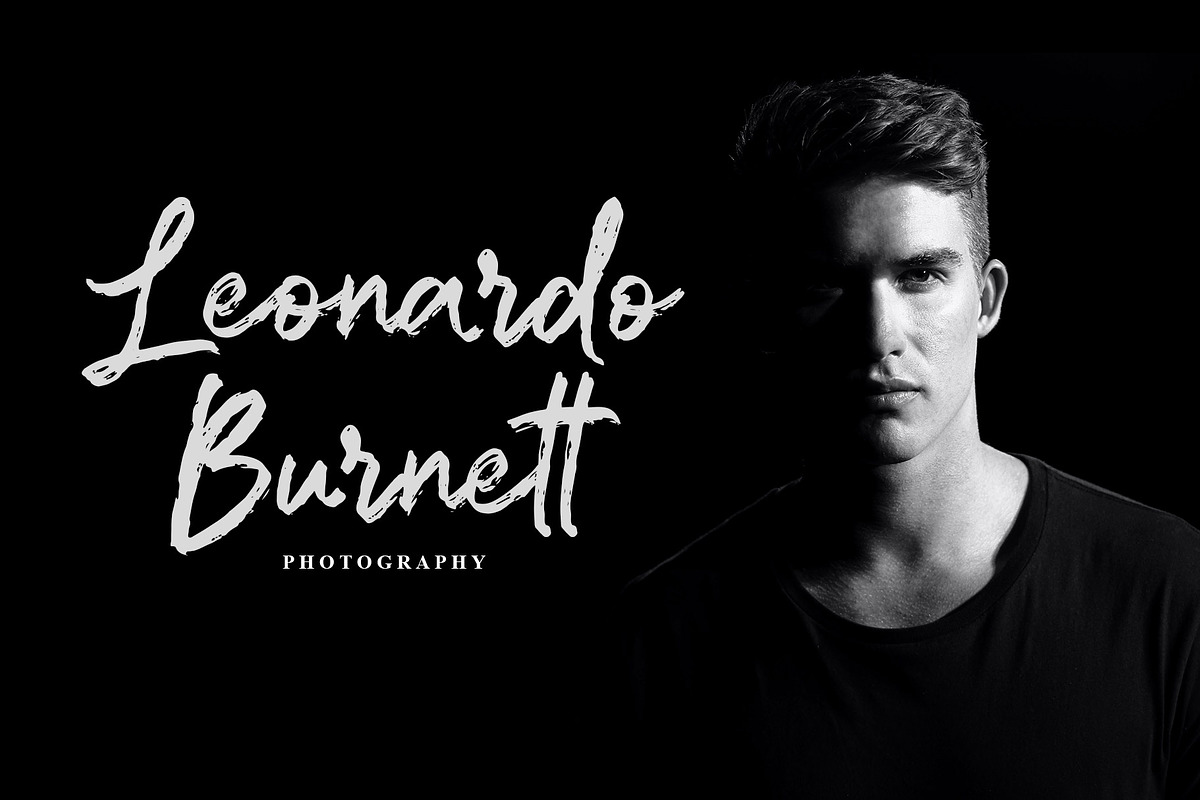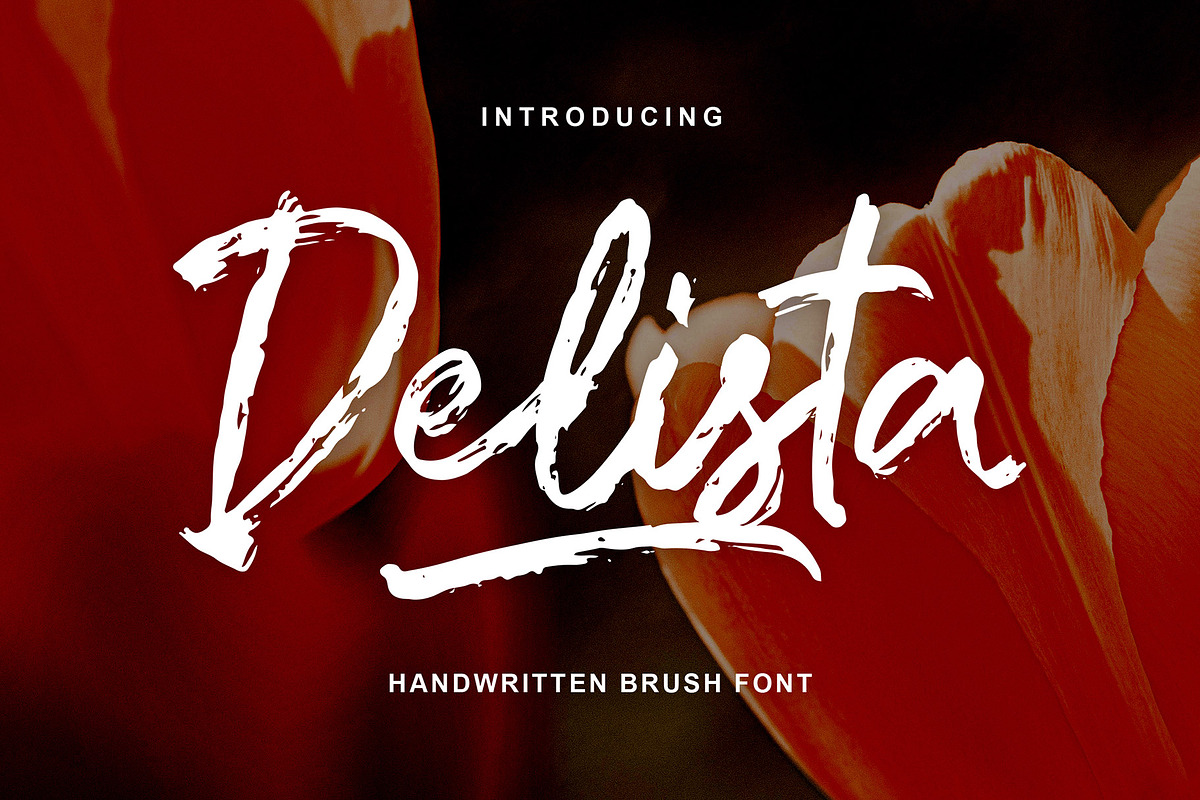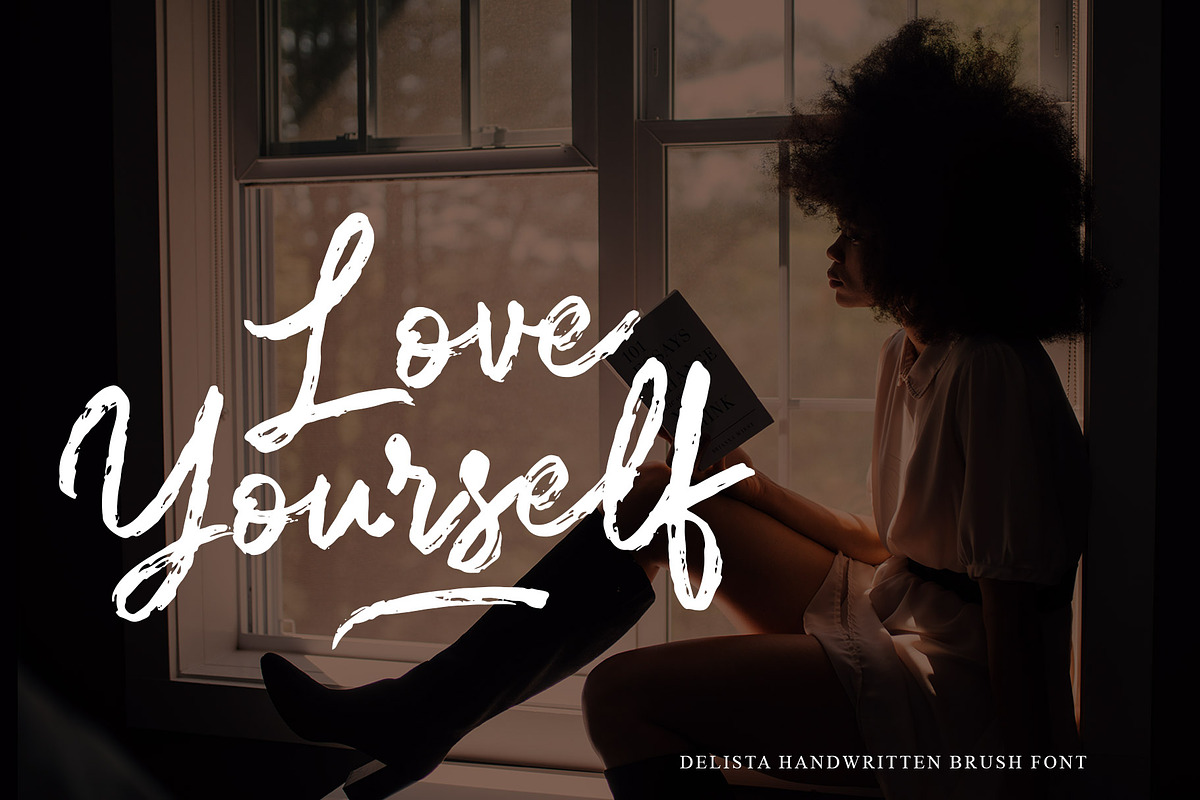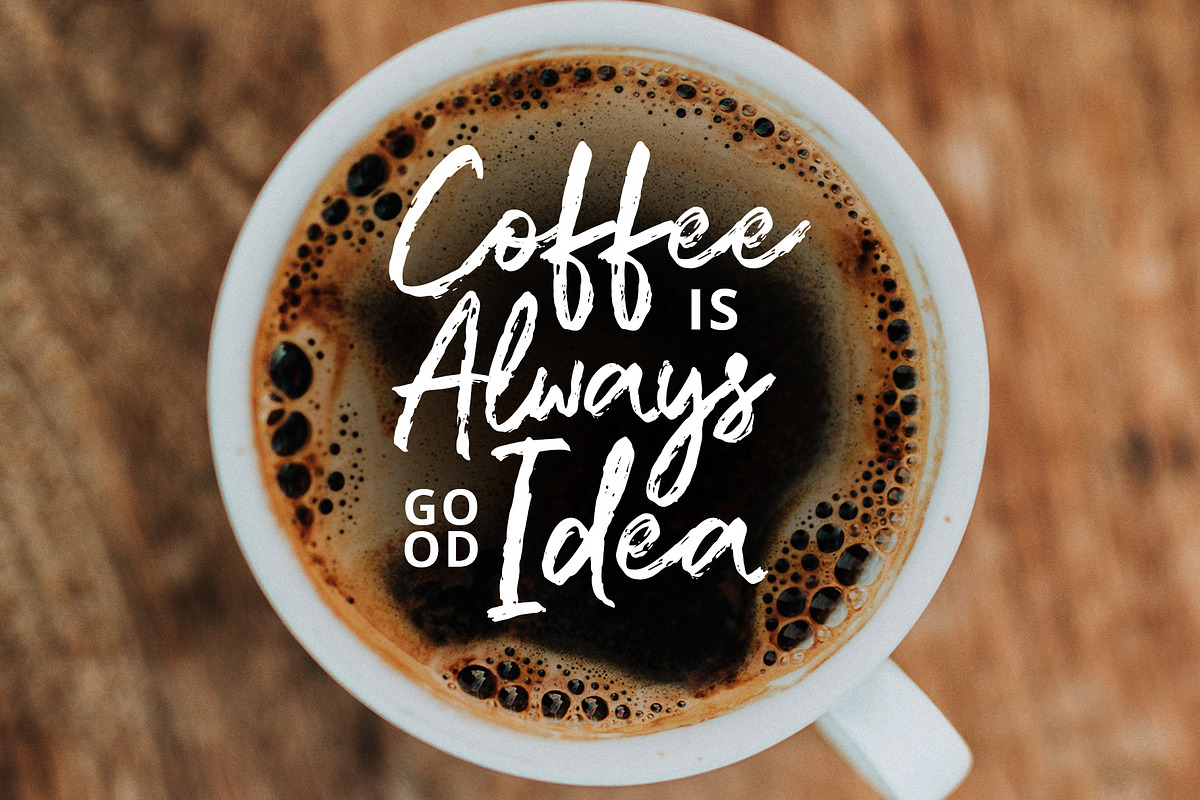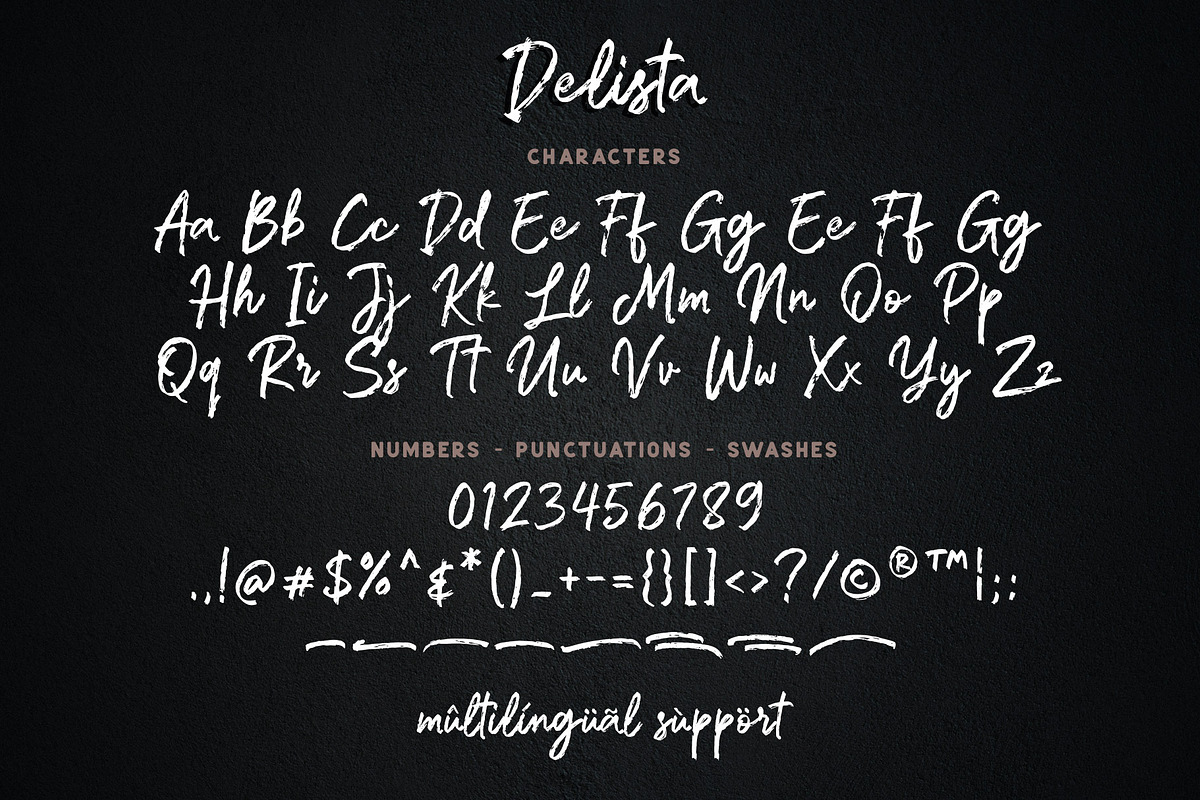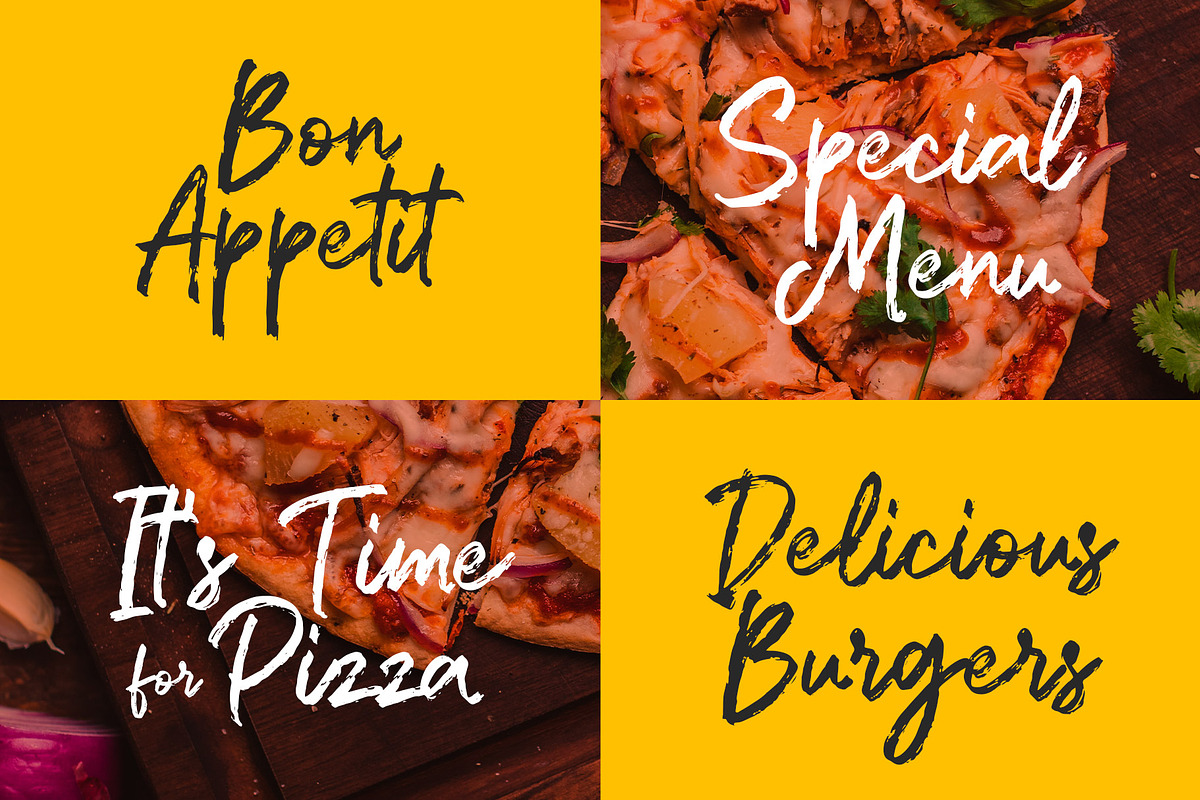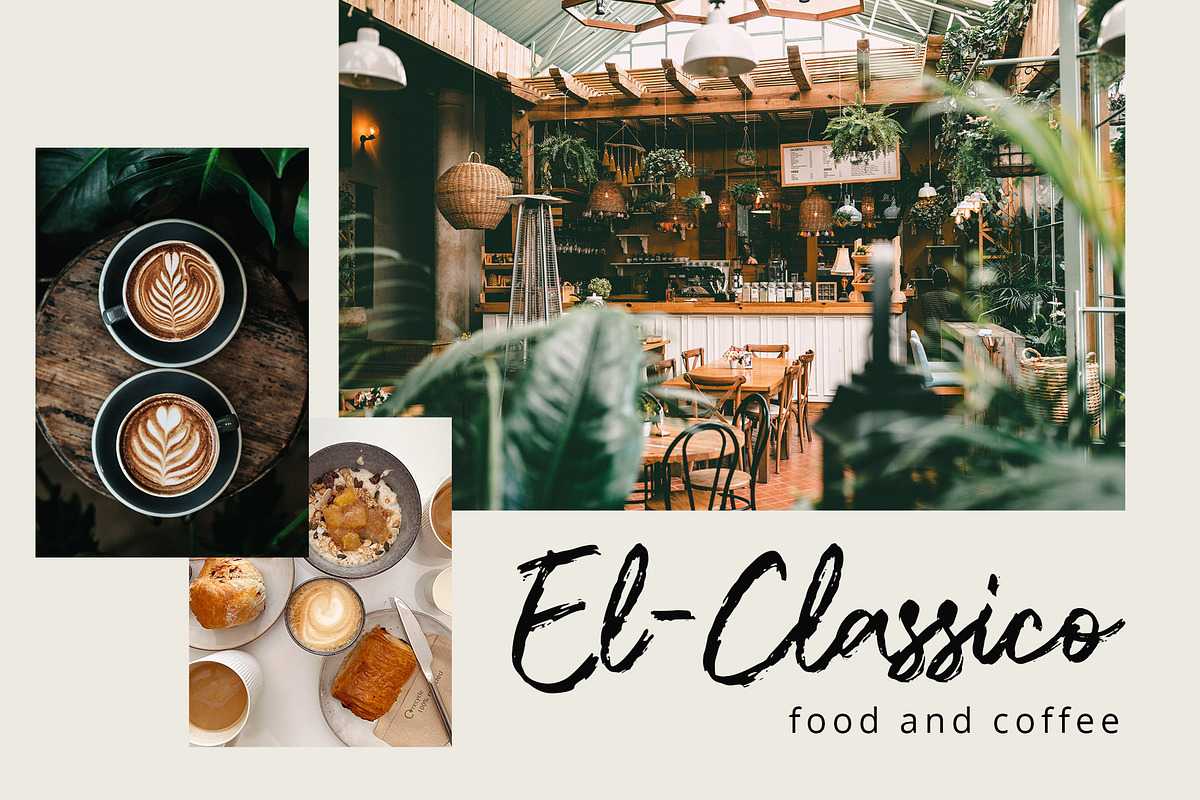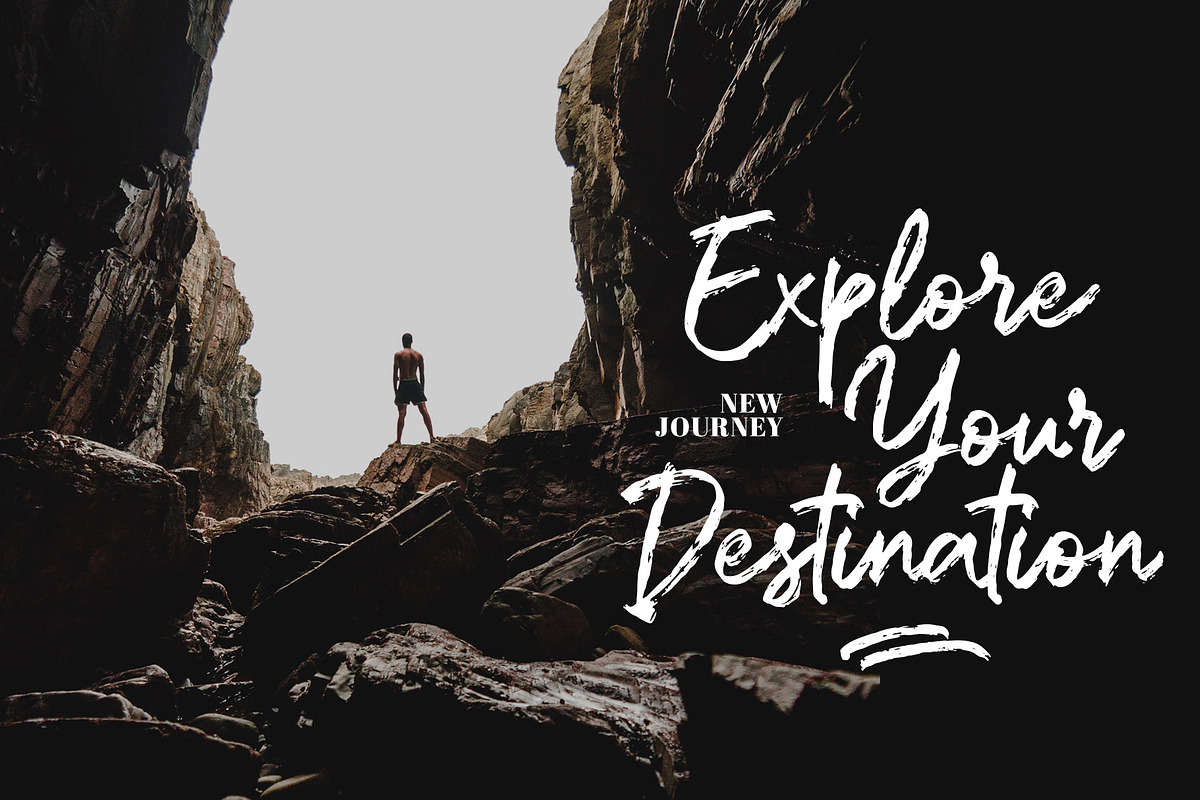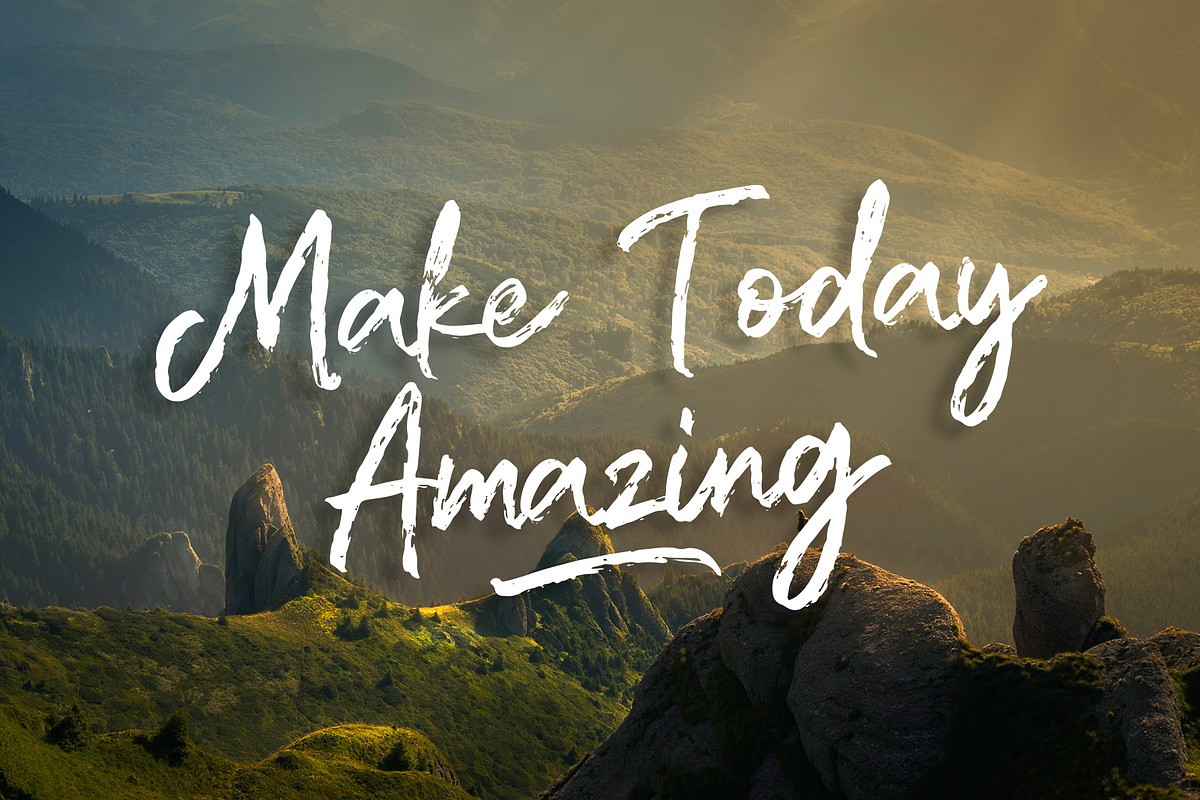
Delista - Handwritten Brush Font
Introducing our new font, perfect for your label, signature, and logo needs: our Delista - Handwritten Brush Font. This font features a rough brush texture that adds a unique, handmade feel to your designs. Its stylish script style, combined with the natural flow of handwriting, makes it a versatile option for a wide range of projects.
Use this font to add a personal touch to your designs, whether you're creating a logo for your business or adding a signature to your artwork. Its rough texture and imperfect lines make it perfect for projects that require a rustic or vintage feel.
This font is easy to use and can be applied to a variety of design applications, including print and digital media. Its hand-drawn style adds a touch of creativity and authenticity to your work, making it stand out from the crowd.
Don't settle for a plain, boring font. Let our Brush Script Handwritten Font add personality and flair to your designs, and elevate your brand to the next level. Try it today and see the difference for yourself!